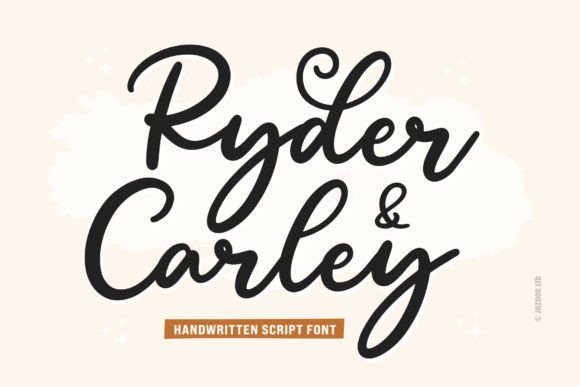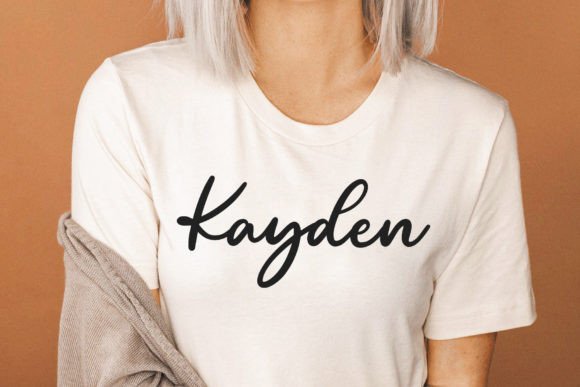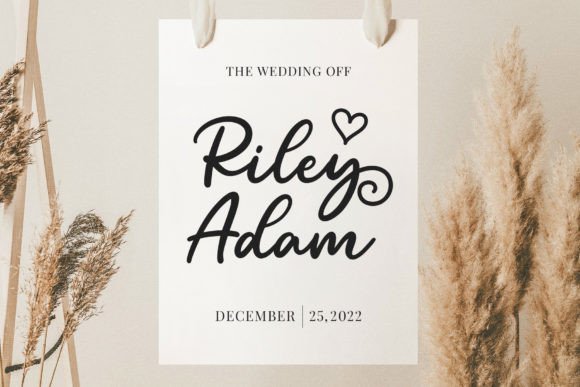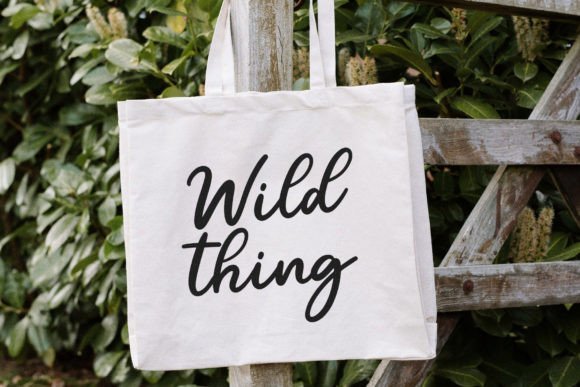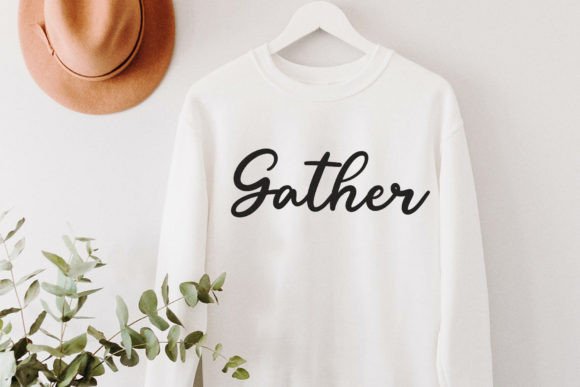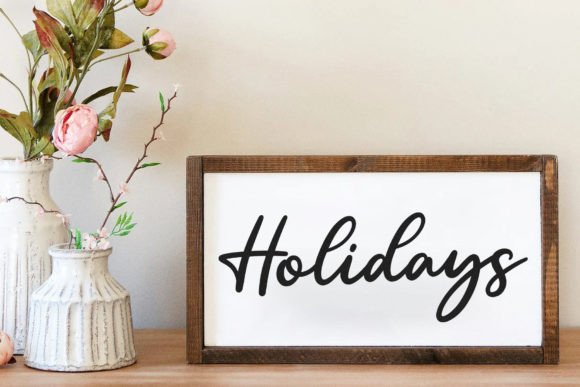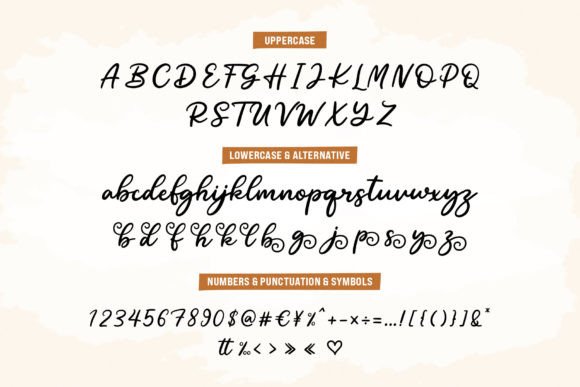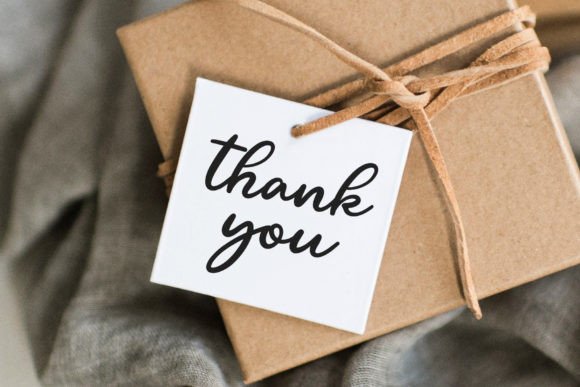
Ryder Carley Font
Introducing Ryder Carley Font
The Ryder Carley Font is the epitome of stylish, modern, and seamlessly flowing handwritten script typeface. Its stunning and meticulously balanced characters are a testament to its versatility, effortlessly complementing a vast array of design concepts. When you integrate Ryder Carley into your most imaginative projects, you’ll experience firsthand how it breathes life into them, adding a touch of sophistication and creativity that sets your work apart.
Why Choose This Typeface?
• Stylish and Modern: Ryder Carley adds sophistication and creativity to your designs, making it suitable for high-end fashion brands, wedding invitations, product labels, and creative marketing campaigns.
• Versatile Usage: This font provides a visually captivating choice for various creative endeavors, allowing you to infuse your designs with elegance and flair.
Applications of Ryder Carley
• Brand Logos: Use this font to create stunning logos that capture attention with modernity and refinement.
• Invitations: Enhance your invitations with a graceful script style that conveys elegance.
• Product Labels: Perfect for adding a stylish script aesthetic to product packaging and labels.
The Impact of Using Ryder Carley
This font elevates your designs by making them visually captivating and memorable. It becomes a reliable tool for designers seeking to create projects that stand out with style. Its balanced form ensures your designs are both refined and captivating.
The Value It Brings
This font is also ideal for various creative projects beyond traditional uses. It can enhance digital designs with its elegant flair, making it suitable for websites, brochures, or mobile interfaces. The Ryder Carley Font adapts well to different screen sizes while maintaining its charm. As design trends evolve, this font remains relevant due to its timeless appeal, balancing style with functionality effectively.